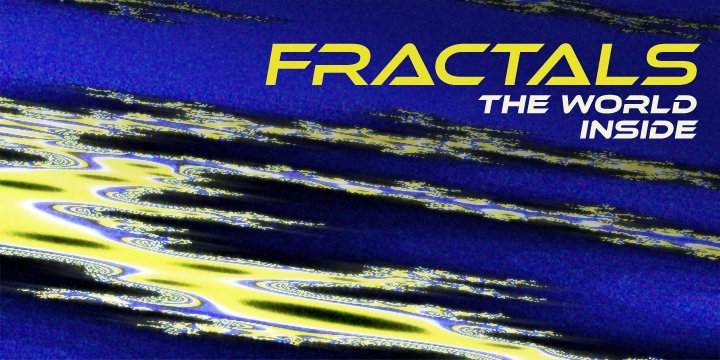
Ethnocentric
from Larabie
Designed by: Ray Larabie
Designed when: 1999
Ethnocentric
Ethnocentric, a robot-friendly futurefont originally created in 1999 has been rebuilt and expanded: more languages, more symbols, no more ugly Q, greatly improved M and W, fractions, ordinals, new kerning, new accents, better proportions, six weights + italics, even more futuristic.